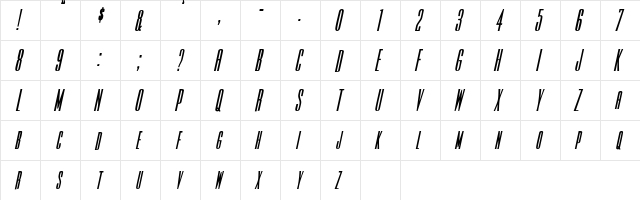
ChianneCondSCapsSSK BoldItalic Font Preview
Design Context for ChianneCondSCapsSSK Typeface
ChianneCondSCapsSSK is a composed and adaptable typeface that performs quietly and consistently across a wide range of design contexts. The slanted form adds forward momentum and visual energy. The heavy weight commands attention and anchors typographic hierarchies. Its narrow stance lets it pack a punch even in space-constrained designs.
Pro Tip: Use ChianneCondSCapsSSK for emphasis, pull quotes, and subheadings where its slanted energy can add rhythm to the layout.